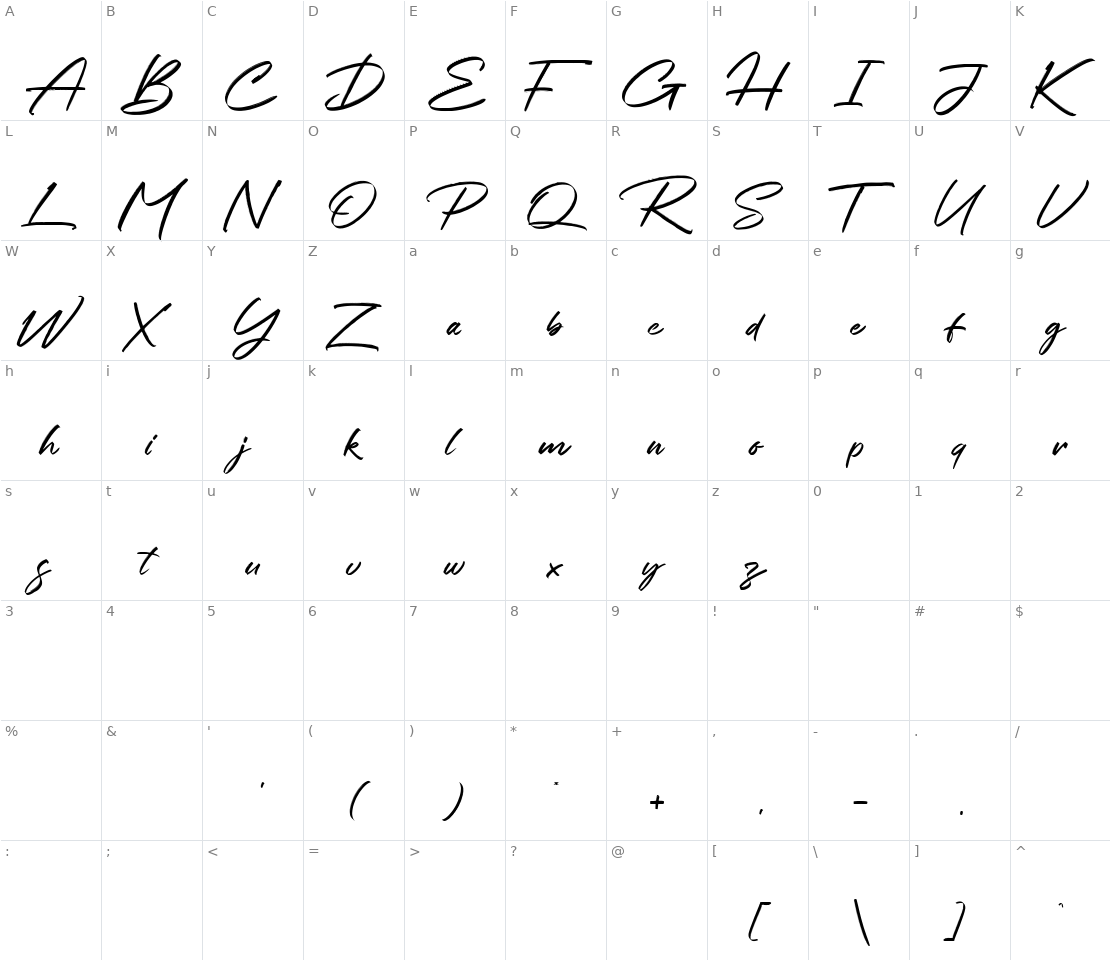
Chalifor Dalsatic
Chalifor Dalsatic is a brush script from Cotbada Studio with fluid, sweeping strokes that split the difference between casual handwriting and polished signature lettering. The letterforms carry a natural energy and expressive movement, with enough elegance to work in branding, wedding invitations, or editorial headlines where you want something that feels personal but still refined.